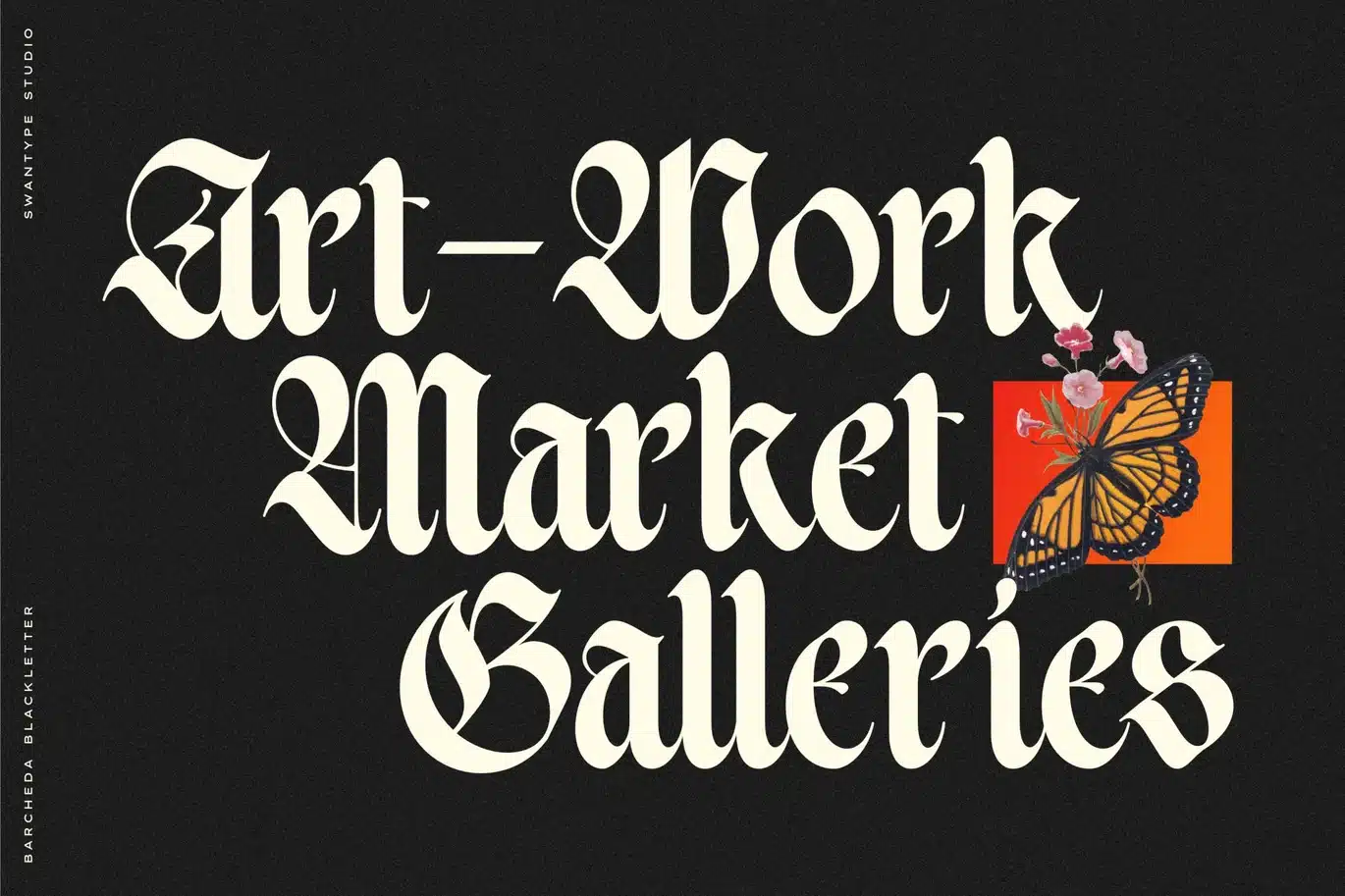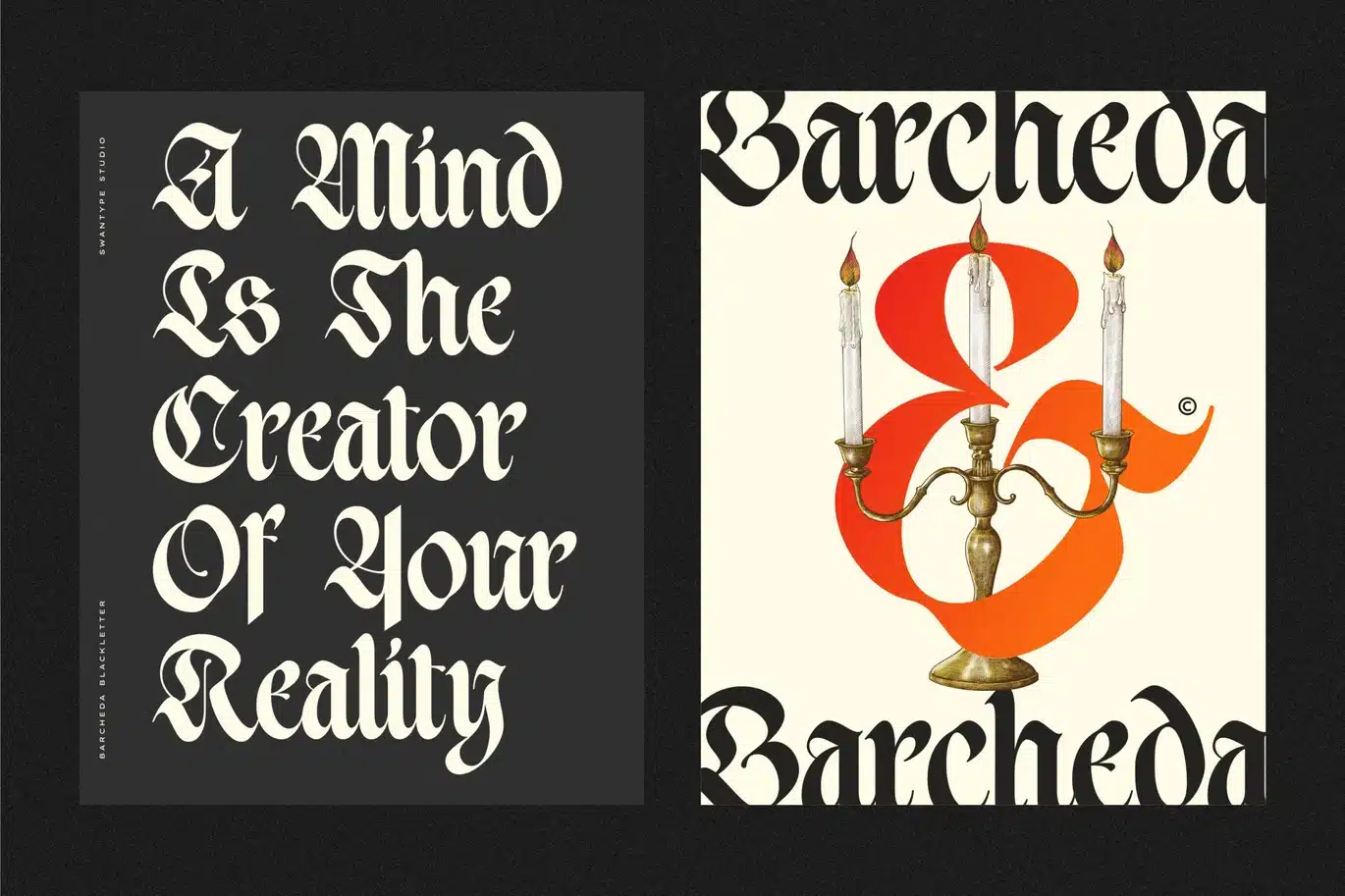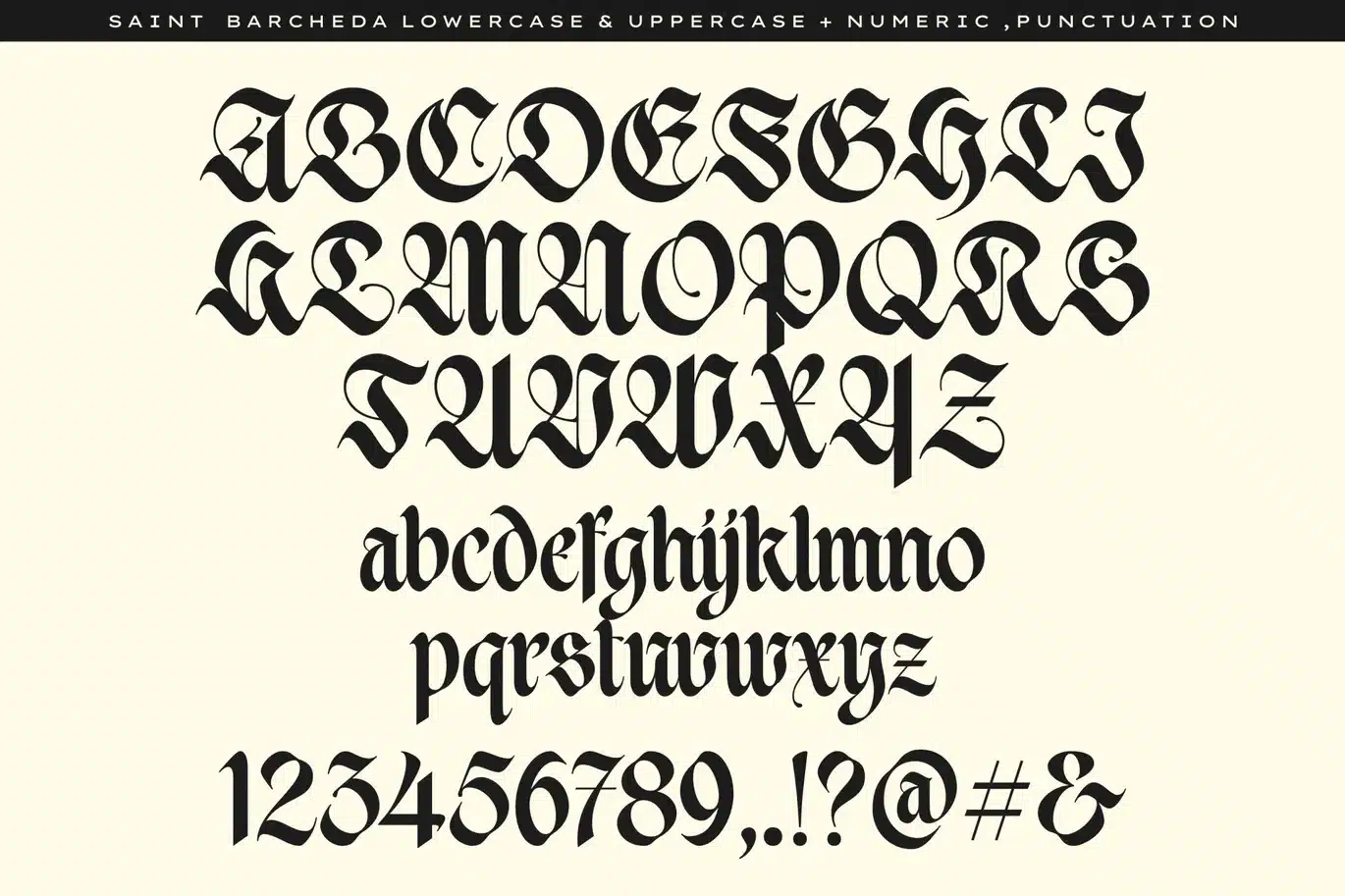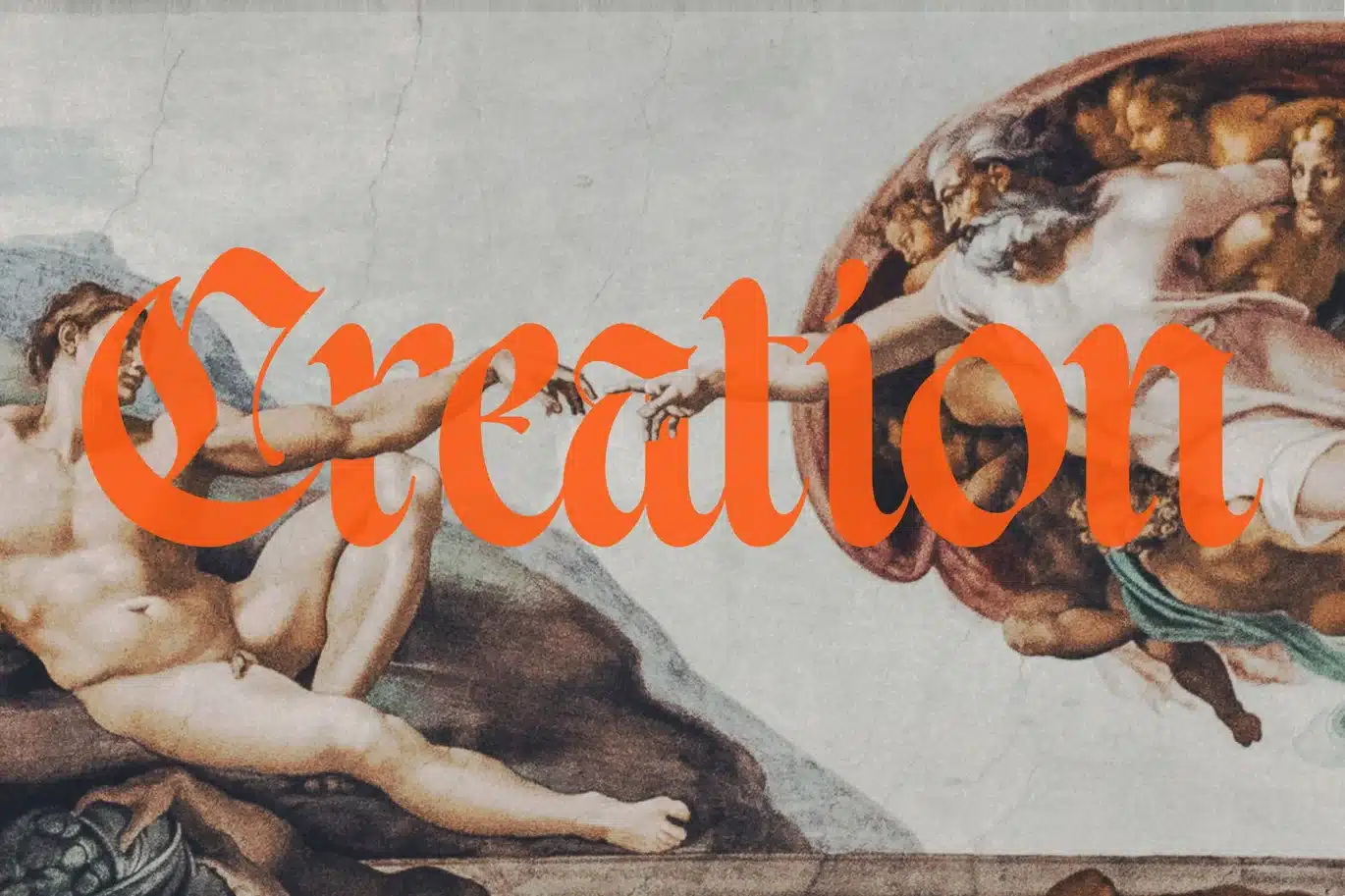
ST Barcheda – Blackletter Script Font
ST Barcheda is a Blackletter Script Font.
Made to express things in a masculine and assertive way.
With high letters, it makes it have a more dominant impression.
ST Barcheda is perfect for display purposes such as editorial projects, Logo design, Music Album, Clothing Branding, product packaging, magazine or news paper headers, or simply as a stylish text overlay to any background image
- Numeral, Punctuation, Multilingual Accents.